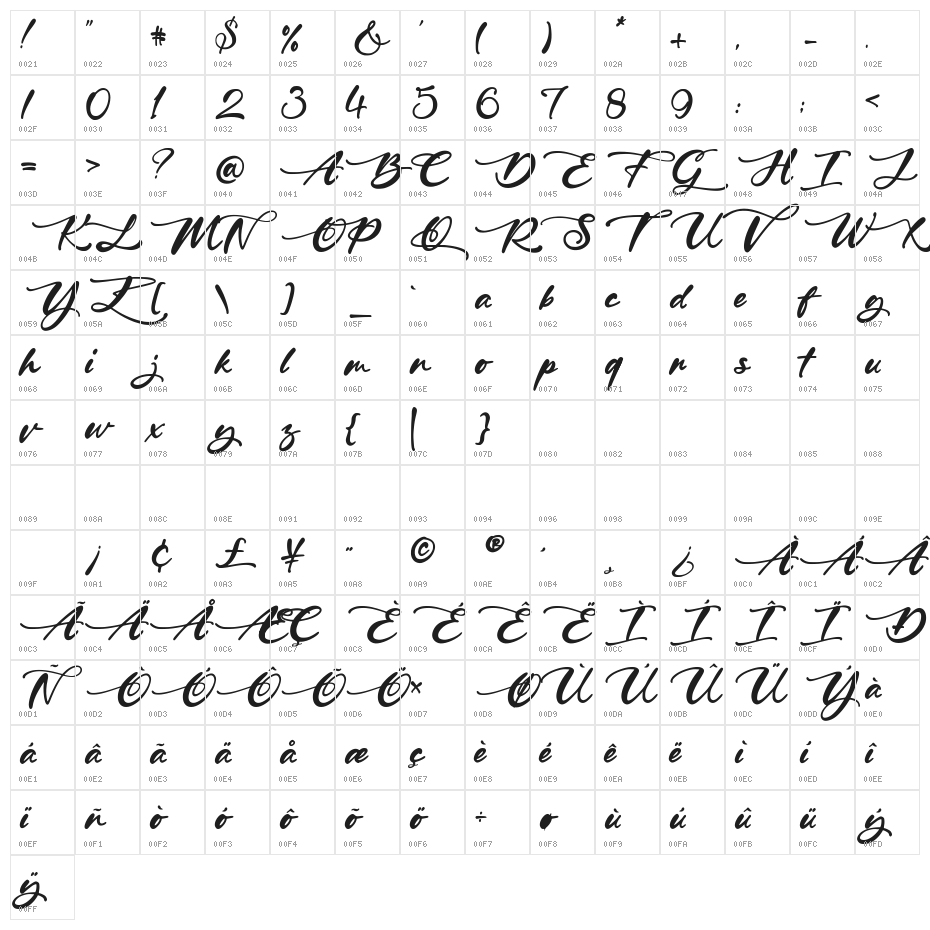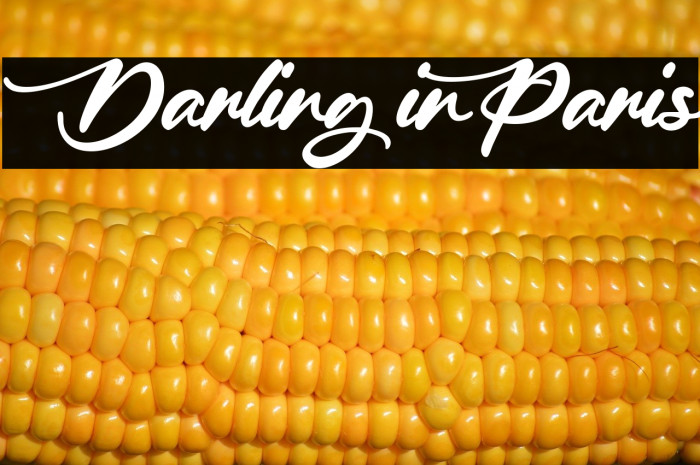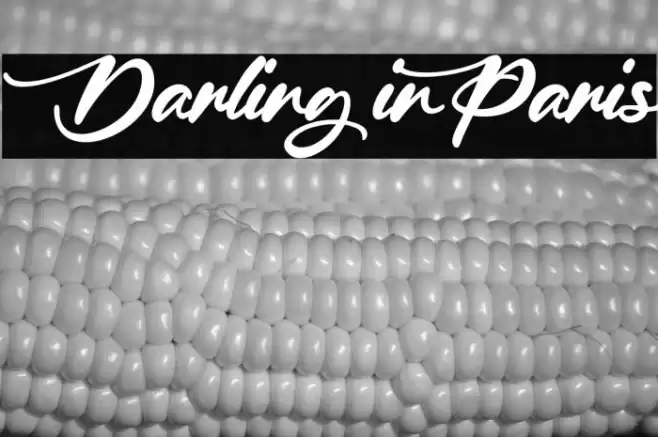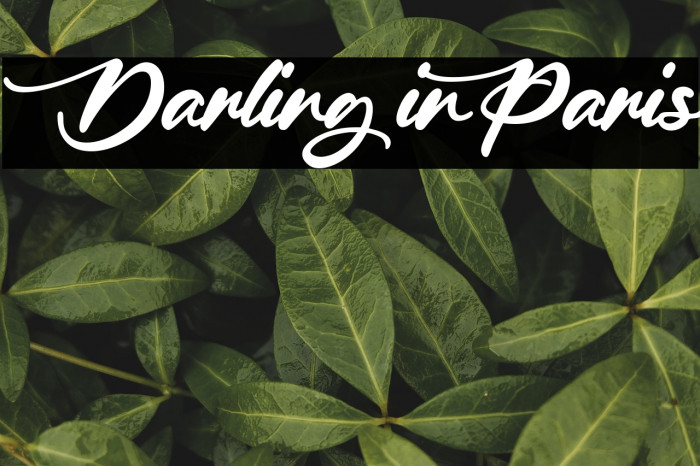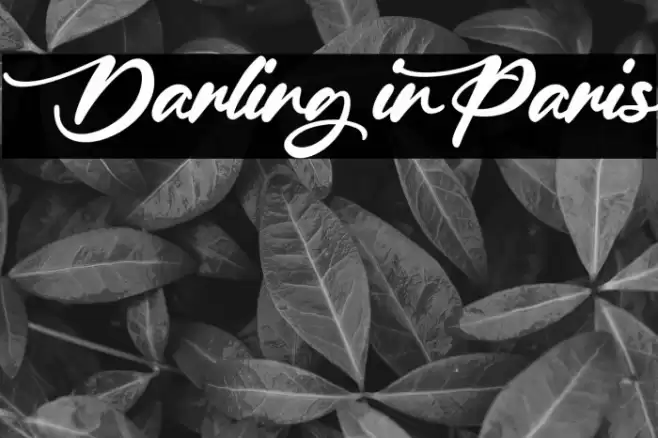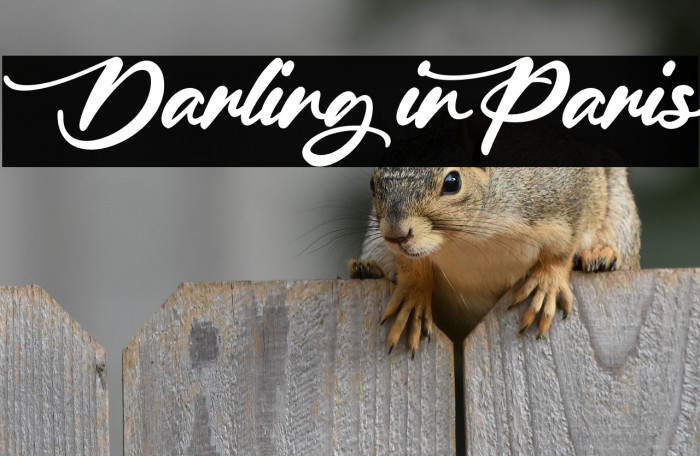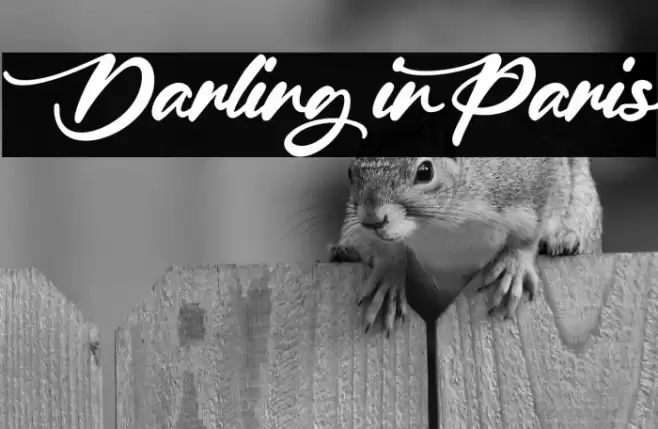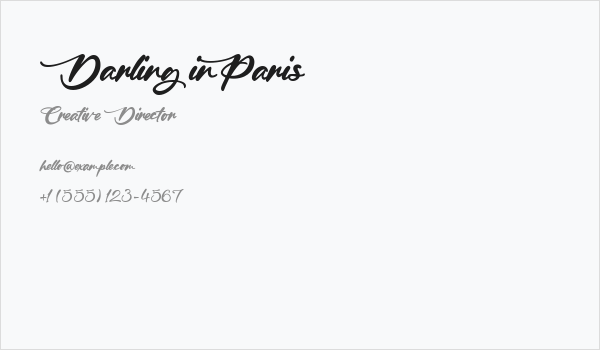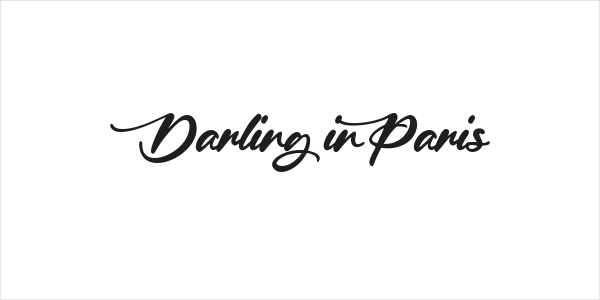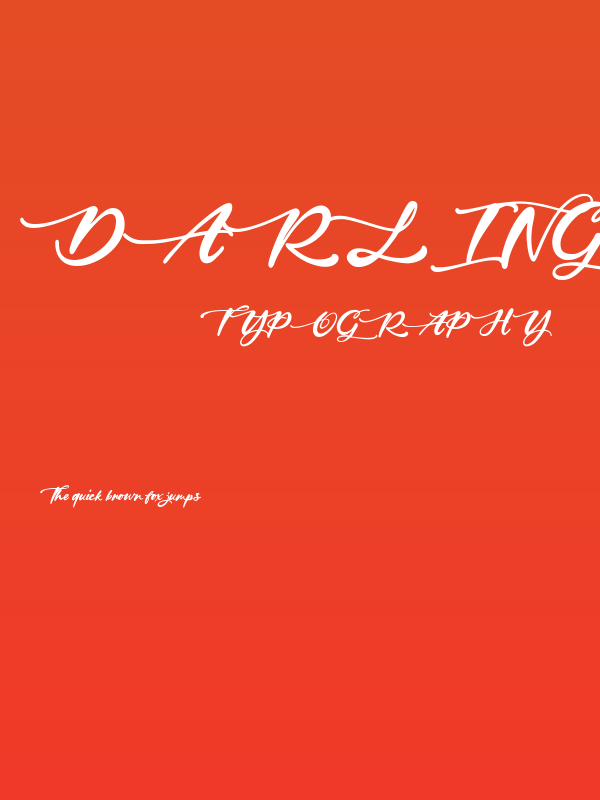
Darling in Paris Font
Darling in Paris Description
This font exudes a sense of elegance and sophistication, characterized by its flowing, cursive script style. The uppercase letters are gracefully connected, with sweeping lines and loops that give a sense of movement and fluidity. The lowercase letters maintain a consistent style, with some characters featuring distinctive flourishes that add to the overall charm. The numerals are bold and slightly rounded, complementing the script style of the alphabet. Special characters are designed with the same attention to detail, ensuring a cohesive look across all elements. This font is perfect for projects that require a touch of class and refinement.